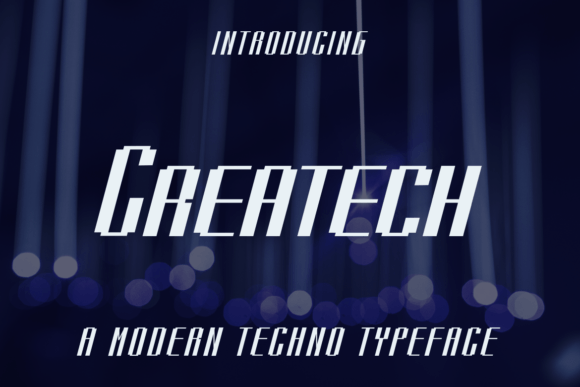
Have you ever been brainstorming ideas for a new design project and suddenly, the perfect font pops into your head? For designers, this moment is a thrill – the moment when everything comes together, and your concept starts to take shape. It’s a moment that can make or break a project, and it’s often all about the right font.
Enter Createch Font, a modern and authentic display font designed to bring your creative ideas to life. With its versatility and sleek design, Createch Font is the perfect fit for everything from posters and social media posts to concert tickets and more. Whether you’re working on a big campaign or a small personal project, Createch Font is the valuable tool you need to make your design stand out.
Createch Font Key Features
- Font Family: Createch Font is a sans-serif font family designed for digital use.
- Character Set: The font includes a wide range of characters, including Latin, Cyrillic, and Greek alphabets, as well as punctuation and symbols.
- Unique Characteristics: Createch Font features a clean and modern design, with a focus on legibility and readability in digital environments.
Createch Font Review
I recently had the chance to work with the Createch Font, and I have to say it’s a mixed bag. On the one hand, there are some great things about this font that I really appreciate.
- ✨ Unique and creative design: The Createch Font has a very distinctive look that sets it apart from other fonts. It’s perfect for projects where you want to add a bit of flair and personality.
- ✨ Great for digital use: The font is optimized for digital use, which makes it look great on screens. The clear lines and simple design ensure that it reads well even at small sizes.
- ✨ Wide language support: The font includes a wide range of languages, making it a great choice for global projects.
However, there are also some limitations that I think are worth mentioning.
- ⚠️ Limited serif options: While the font is great for digital use, it’s not ideal for print projects where a serif font is required. The lack of serif options is a bit of a letdown.
- ⚠️ Not ideal for body text: The font is best used for headings and titles, as it can be a bit too bold and attention-seeking for large blocks of body text.
Overall, I think the Createch Font is a great choice for projects where you want to add a bit of creativity and personality. However, it’s not a one-size-fits-all solution, and you may need to use it judiciously to get the best results.
Alternatives to Createch Font for Designers
Q: What is the recommended font size for the Createch Font?
The recommended font size for the Createch Font varies depending on the application and intended use. However, as a general guideline, we recommend using font sizes between 12pt and 24pt for body text, and 36pt and above for headings. This will ensure optimal readability and legibility.